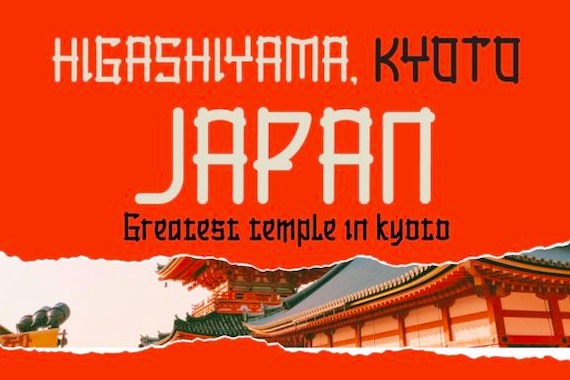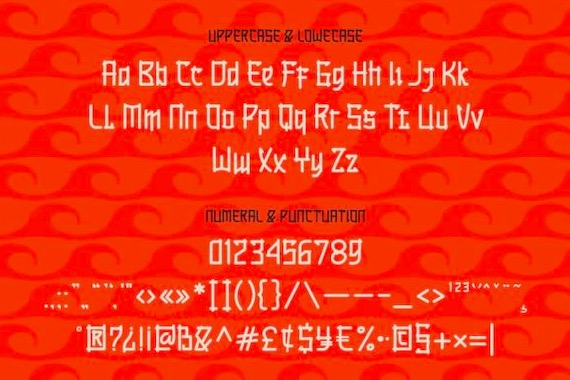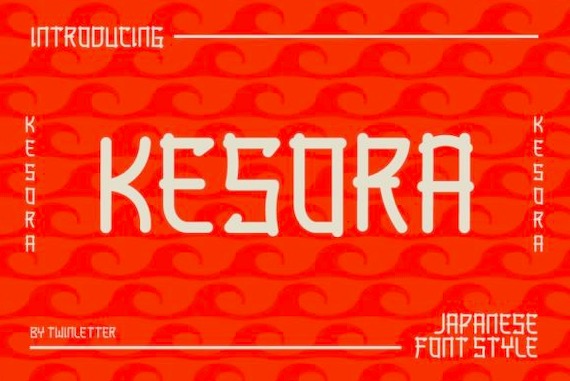
Kesora is a modern classic display font that was created and shared by Twinletter with a simple Japanese style. Unlike any other, both in terms of shape and style. It also has a new and unusual appearance that makes it truly unique and quirky.
Kesora Display Font